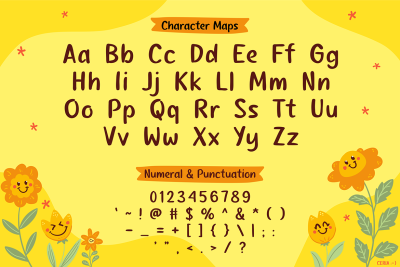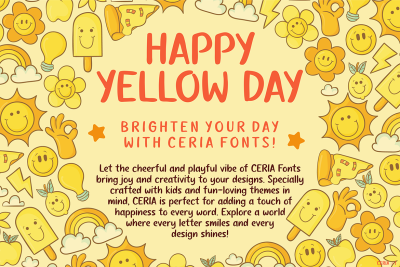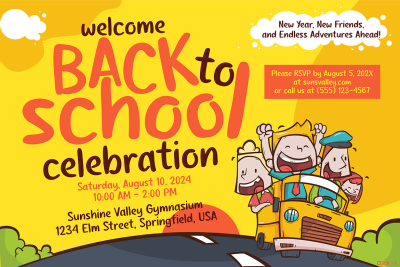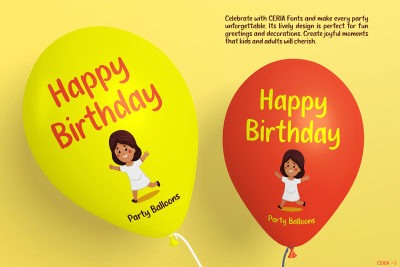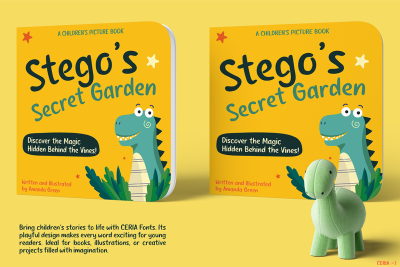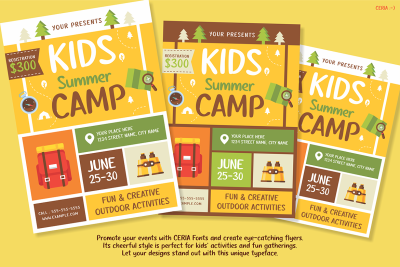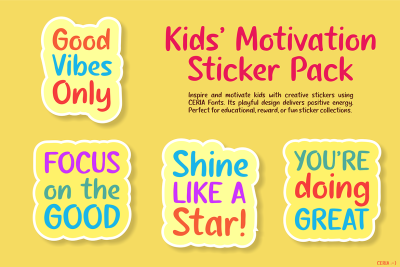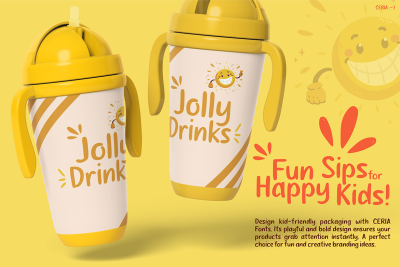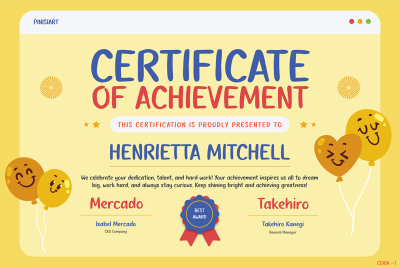
The Kids Font CERIA is a cheerful and playful typeface that radiates joy and positivity. Designed with rounded edges and a hand-drawn, organic style, this font exudes a friendly and approachable vibe. Moreover, each letter is crafted to feel soft and fun, making it ideal for designs that aim to engage children or convey a sense of youthful energy. Additionally, the bright, bubbly aesthetic ensures that this font will stand out in any colorful and creative project.
In addition to its delightful design, the Kids Font CERIA offers excellent versatility. Its simplicity and clarity make it highly readable, while its lively personality adds charm to every letter. For instance, whether youโre designing educational tools, branding for childrenโs products, or festive event invitations, this font seamlessly adapts to a wide variety of applications. Furthermore, the font pairs beautifully with vibrant illustrations, making it perfect for projects that require a dynamic and engaging look.
Kids Font CERIA Suitable For
The Kids Font CERIA is perfect for a variety of creative and professional uses:
- Teachers and Educators: Create engaging worksheets, flashcards, posters, and classroom materials that capture childrenโs attention. Moreover, its friendly design helps make learning more enjoyable and visually stimulating.
- Graphic Designers: Use it to design colorful posters, social media graphics, or packaging for kid-centric products. Similarly, its playful style adds a touch of whimsy to any creative project.
- Childrenโs Book Authors and Illustrators: Ideal for book covers, chapter headings, or page layouts in childrenโs books, this font enhances storytelling with its bright and cheerful character. Additionally, it pairs well with colorful illustrations to create an engaging experience for readers.
- Event Planners: Design vibrant invitations, signage, and decorations for kidsโ parties, school events, or family gatherings. As a result, the fontโs joyful aesthetic ensures a festive and inviting atmosphere.
- Toy and Game Companies: Perfect for branding, packaging, or advertising materials for toys, games, or puzzles. Consequently, its fun and approachable design appeals directly to young audiences and parents alike.
- Small Businesses: Especially suited for family-friendly brands such as cafes, bakeries, or boutiques, the font helps establish a warm and inviting identity. Therefore, itโs an excellent choice for businesses that want to connect with families and children.
In summary, the Kids Font CERIA is a must-have typeface for anyone creating designs that target children and families. Its lively, heartwarming style and exceptional readability make it an excellent choice for a wide range of projects. Thus, let the Kids Font CERIA bring happiness and creativity to your designs!